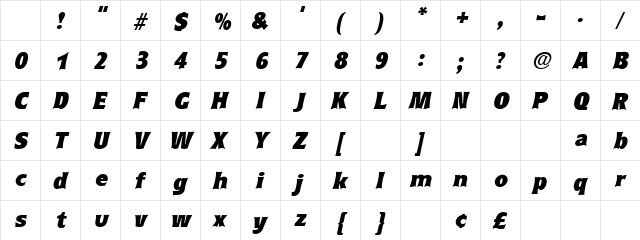
Plaudit is a composed and adaptable typeface that performs quietly and consistently across a wide range of design contexts. The slanted form adds forward momentum and visual energy.
Pro Tip: Use Plaudit for emphasis, pull quotes, and subheadings where its slanted energy can add rhythm to the layout.